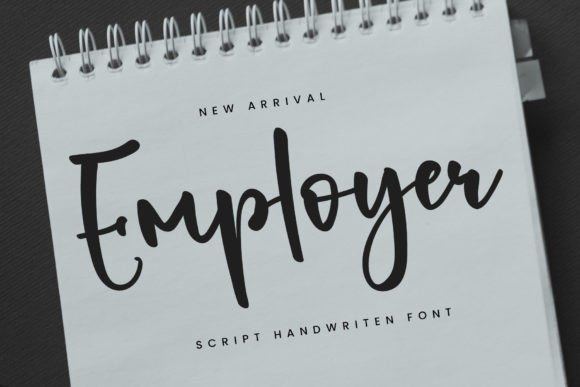
**Introducing Employer: The Script Font Redefining Modern App Aesthetics**
In a world of digital innovation, where captivating user interfaces reign supreme, Employer emerges as the ultimate font for modern app design. Its elegant curves and playful charm breathe life into your digital creations, leaving a lasting impression on users. Trust Employer to set your app apart, attracting attention and boosting engagement like never before.
**Employer: A Font Symphony for Unforgettable Branding**
With Employer's graceful lines and enchanting personality, your brand identity will shine brighter than ever. Its versatility knows no bounds, adapting seamlessly to a myriad of design projects. From logos and branding materials to wedding invitations and fashion lookbooks, Employer adds a touch of sophistication and charm that resonates with audiences, leaving a lasting impression.
**Employer: Your Secret Weapon for Marketing Triumphs**
Harness the power of Employer's captivating aura to elevate your marketing campaigns to new heights. Its ability to captivate attention and engage users makes it the perfect choice for promotional materials, ensuring your message stands out in a sea of digital noise. Employer's elegant presence will leave a lasting impact, propelling your marketing efforts to unprecedented success.
**Employer: A Versatile Masterpiece for Creative Expression**
Whether you're a seasoned graphic designer, a budding entrepreneur, or simply a creative soul seeking expression, Employer is your perfect companion. Its versatility shines in any project, effortlessly adding a touch of elegance and charm to your designs. Unleash your imagination and let Employer amplify your creativity, transforming your vision into a visual masterpiece.
**Employer: Crafting Moments of Joy and Romance**
With Employer's graceful strokes and whimsical essence, your designs will evoke emotions, create connections, and spark moments of pure joy. Its ability to infuse a sense of romance and celebration makes it the perfect choice for wedding invitations, greeting cards, and any project where love and happiness are the guiding stars.